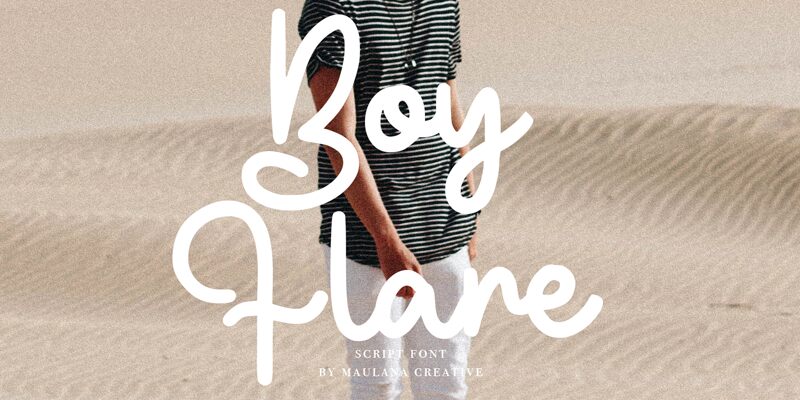
Boyflare Free Regular
Boyflare by Maulana Creative is a charming handwritten font that exudes a playful and friendly personality. Its semi-light weight has a delicate touch, making it perfect for designs that require a soft touch. From wedding invitations to social media graphics, Boyflare adds an approachable vibe to any project. Pair it with bold sans-serif fonts for contrast or use it alone for a whimsical feel. Bring your designs to life with Boyflare – the perfect semi-light handwritten font for all your creative endeavors.